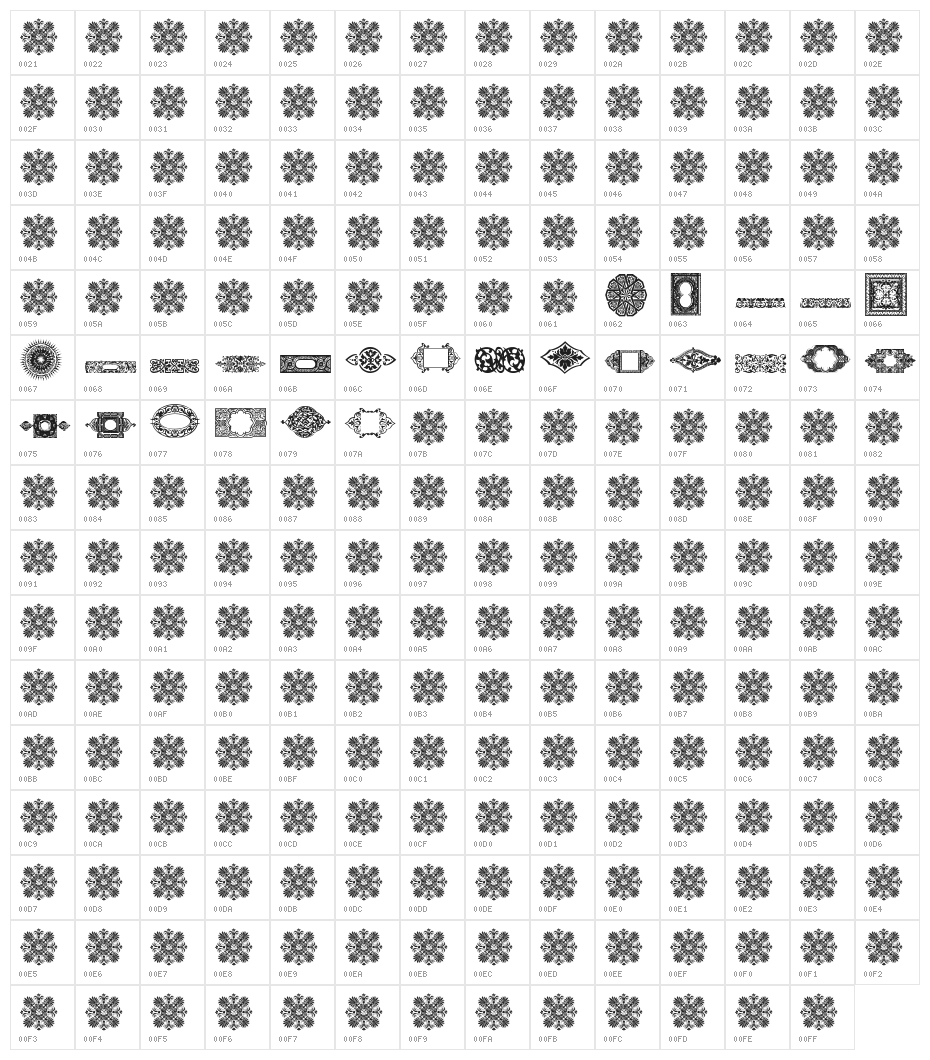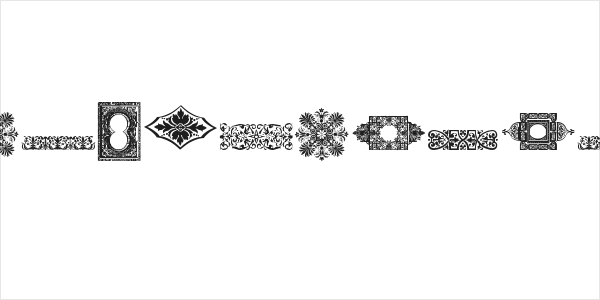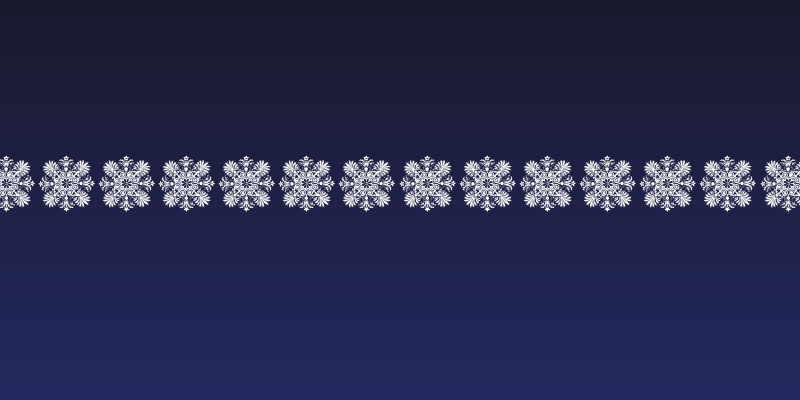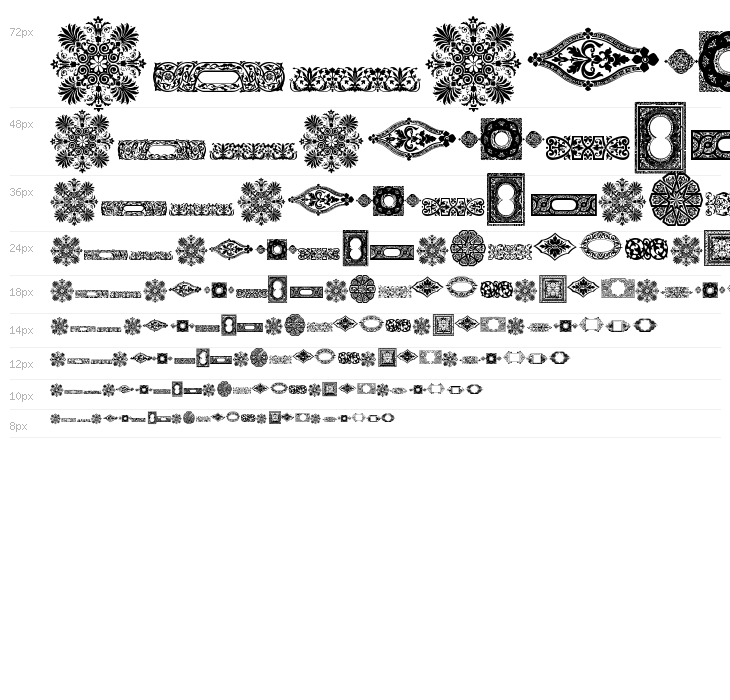
Vintage Decorative Signs 8 Font
Vintage Decorative Signs 8 Description
A collection of highly ornamental, vintage-inspired decorative elements and borders, featuring intricate floral and geometric motifs. The designs are symmetrical, detailed, and evoke a sense of antique craftsmanship, suitable for embellishing signs, invitations, or certificates.
| Overall Style | Vintage, Decorative |
| Use Case | Borders, frames, ornamental accents, decorative dividers. |
| Proposed Projects | Wedding invitations, certificates, vintage signage, decorative borders for posters, book covers. |